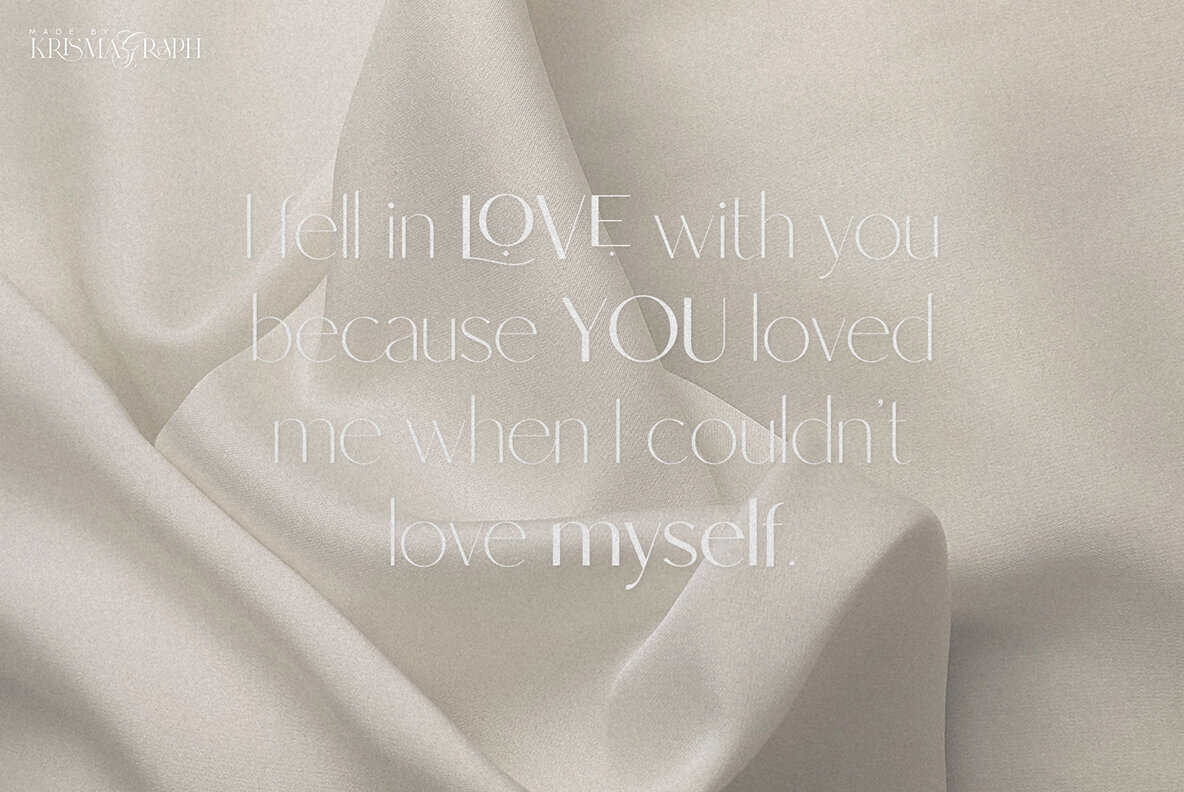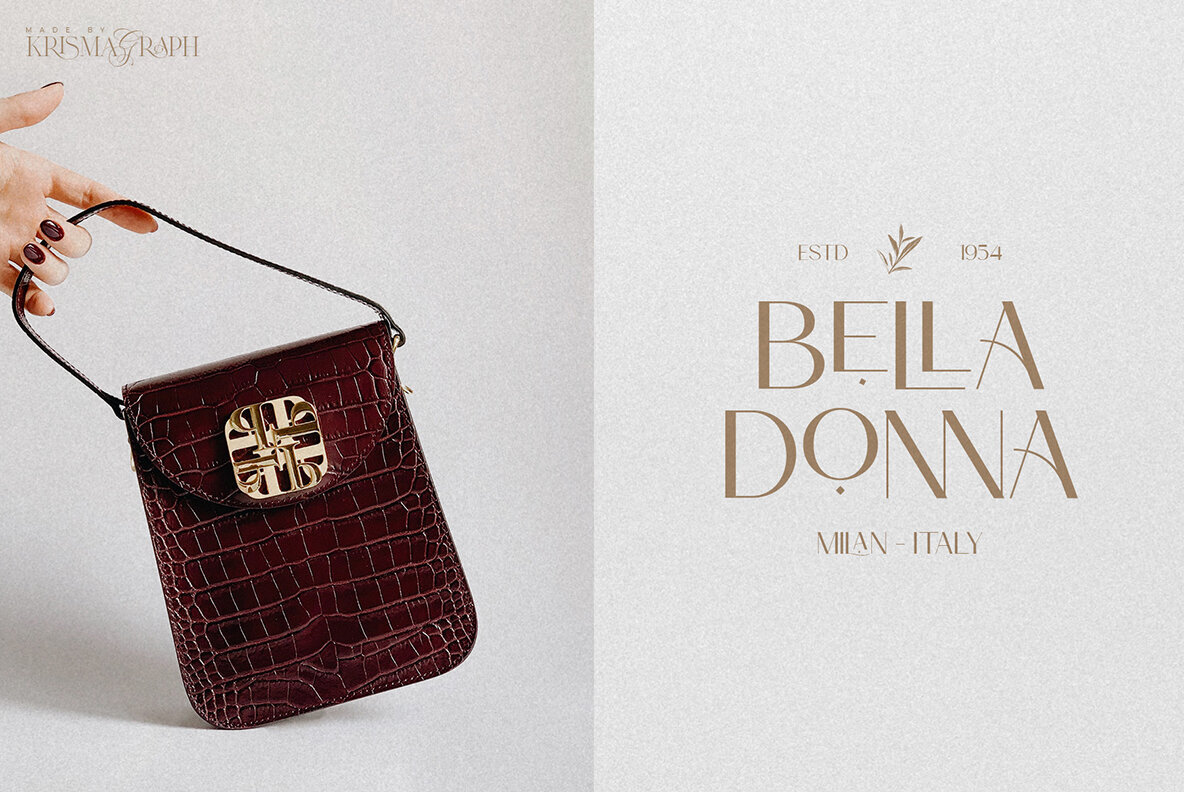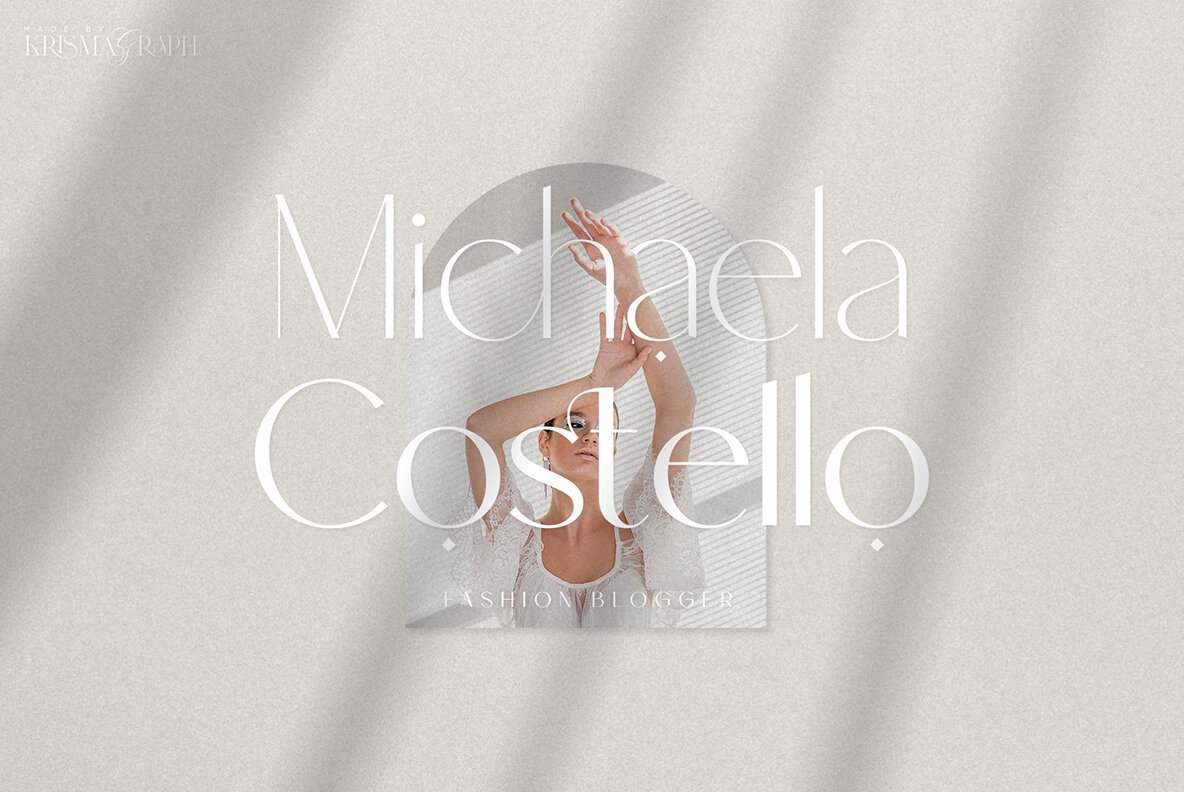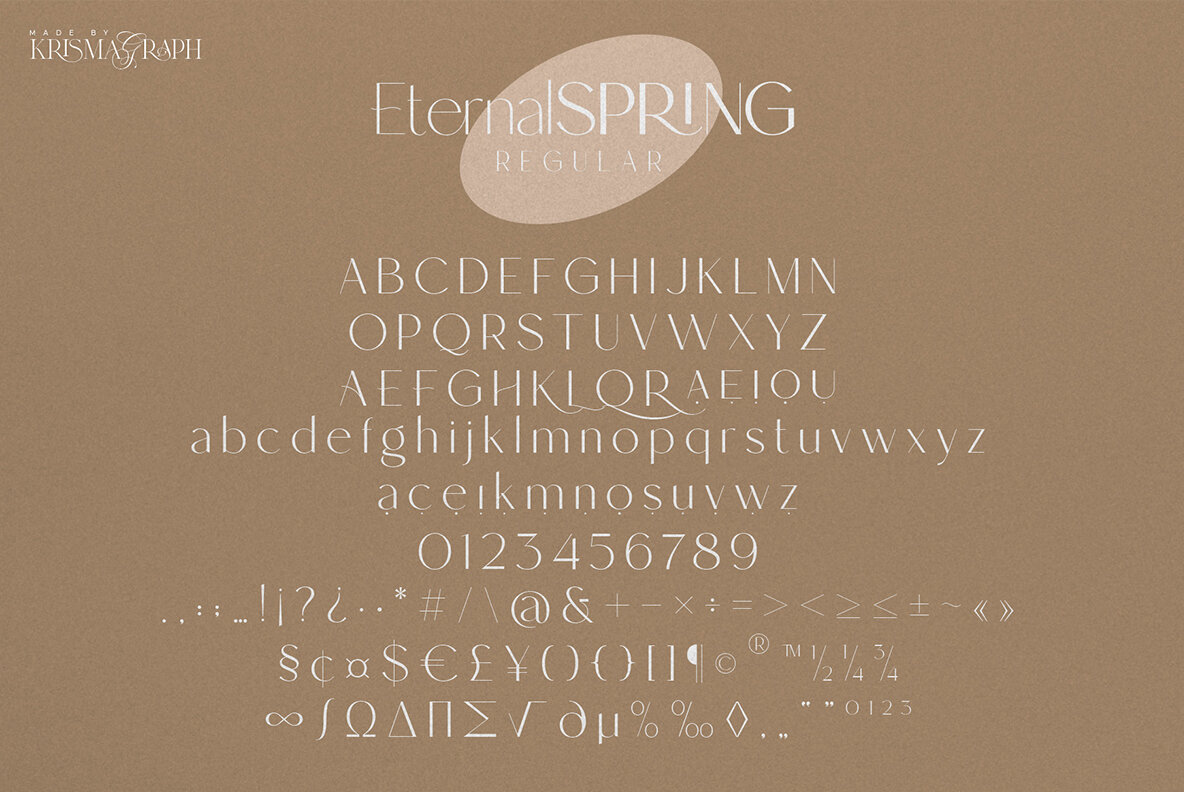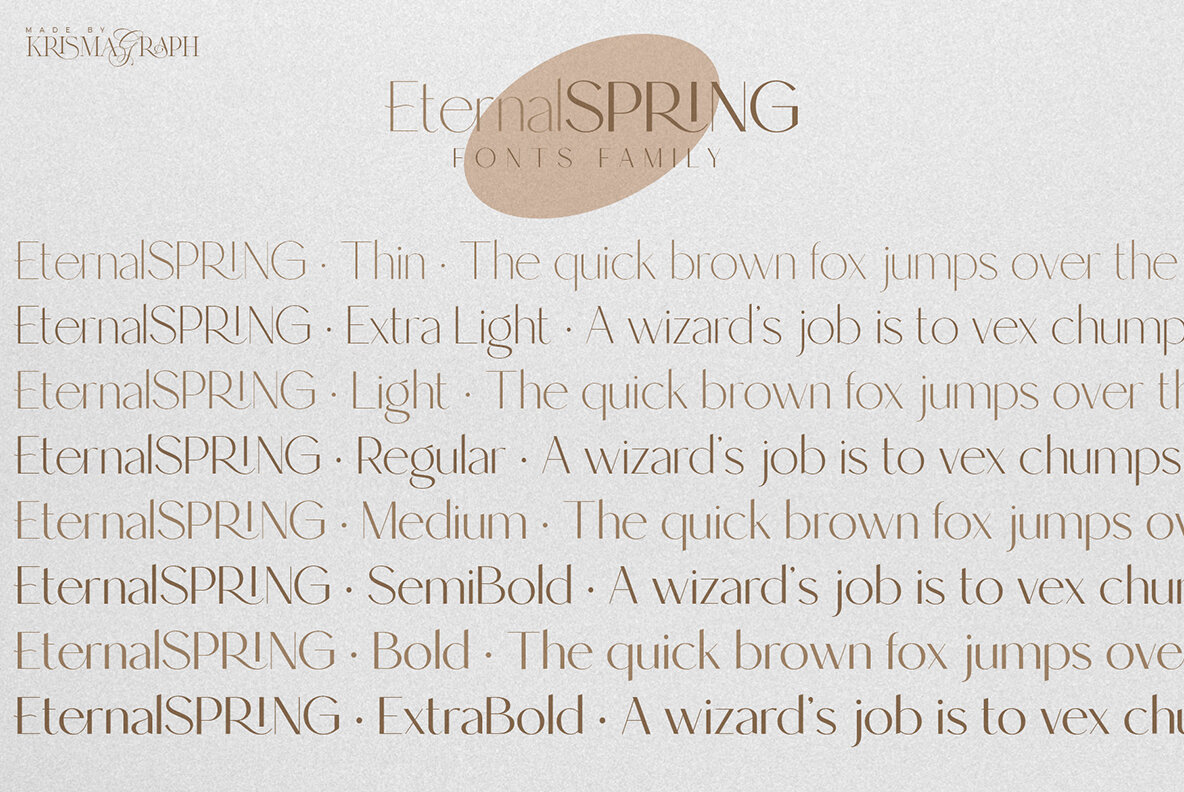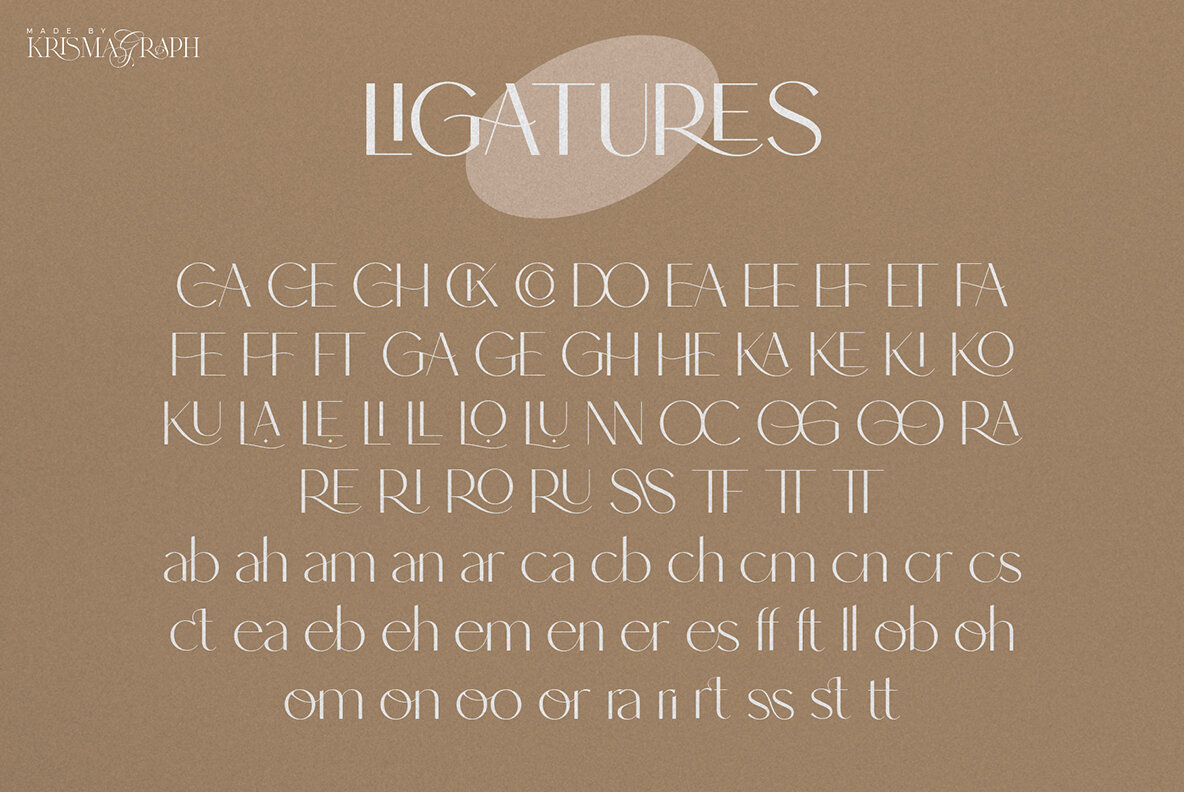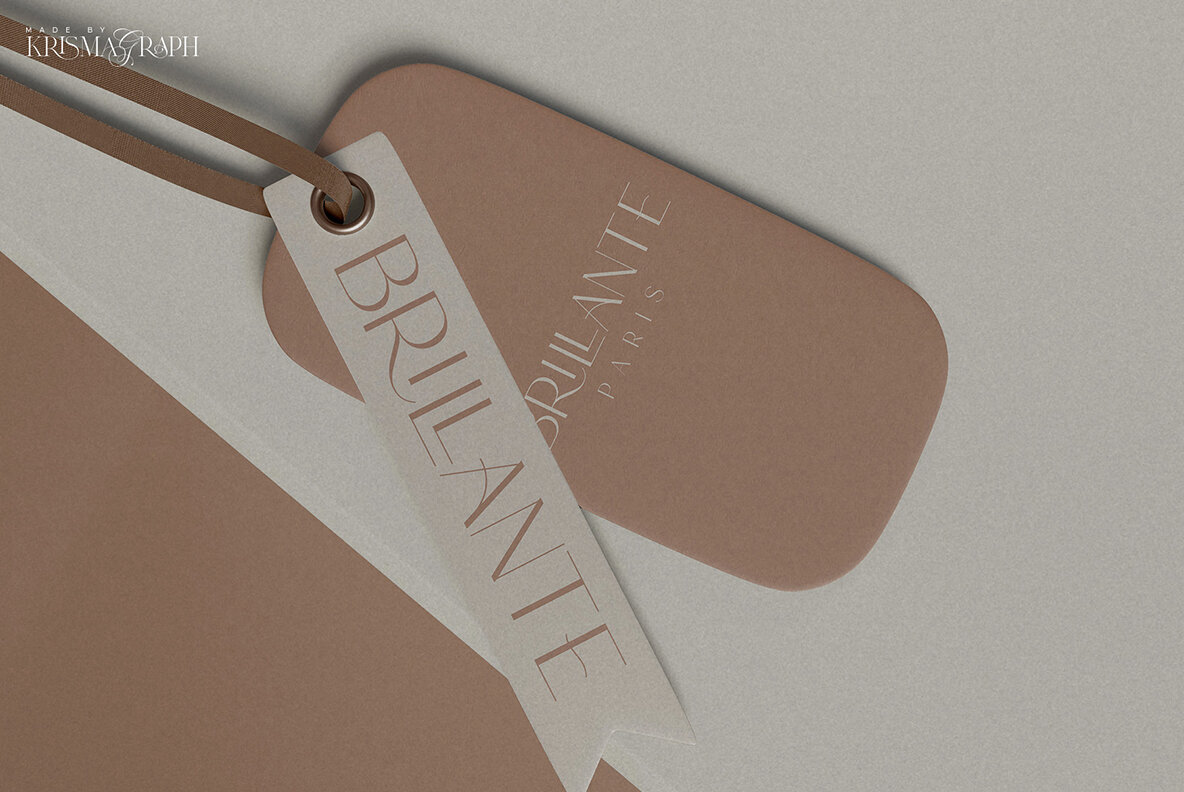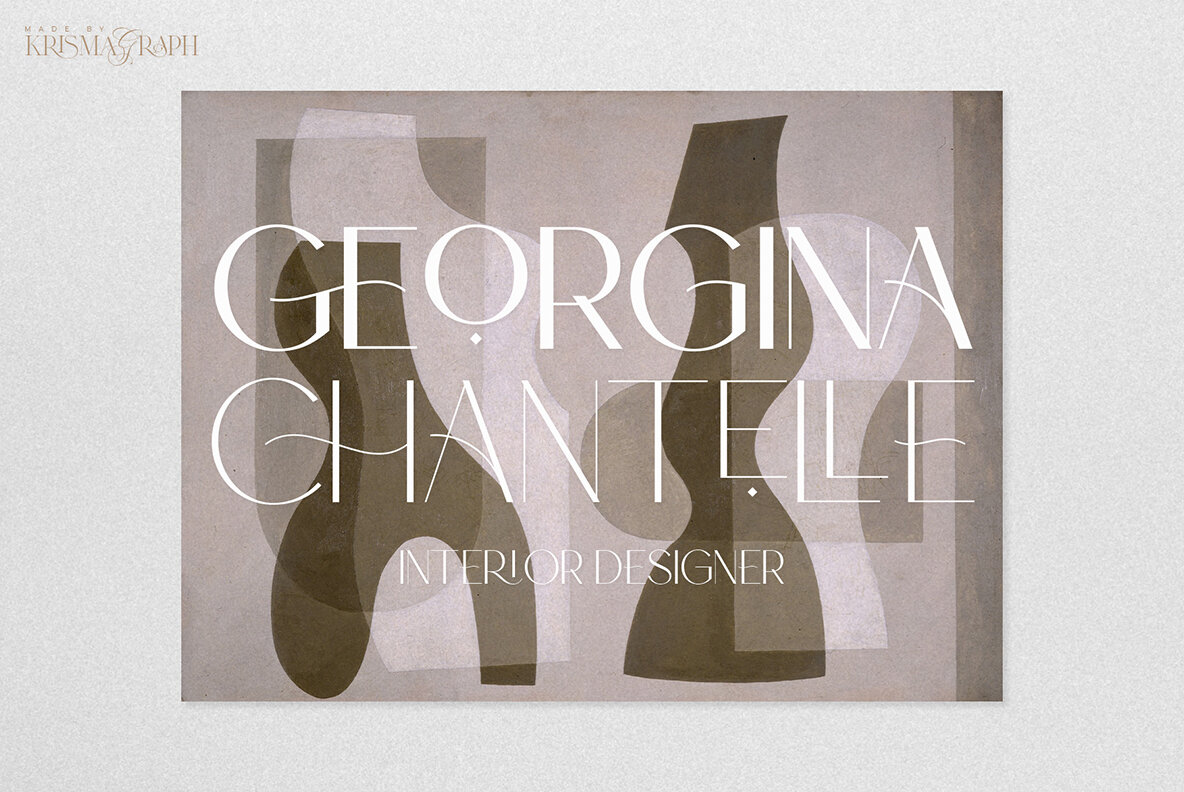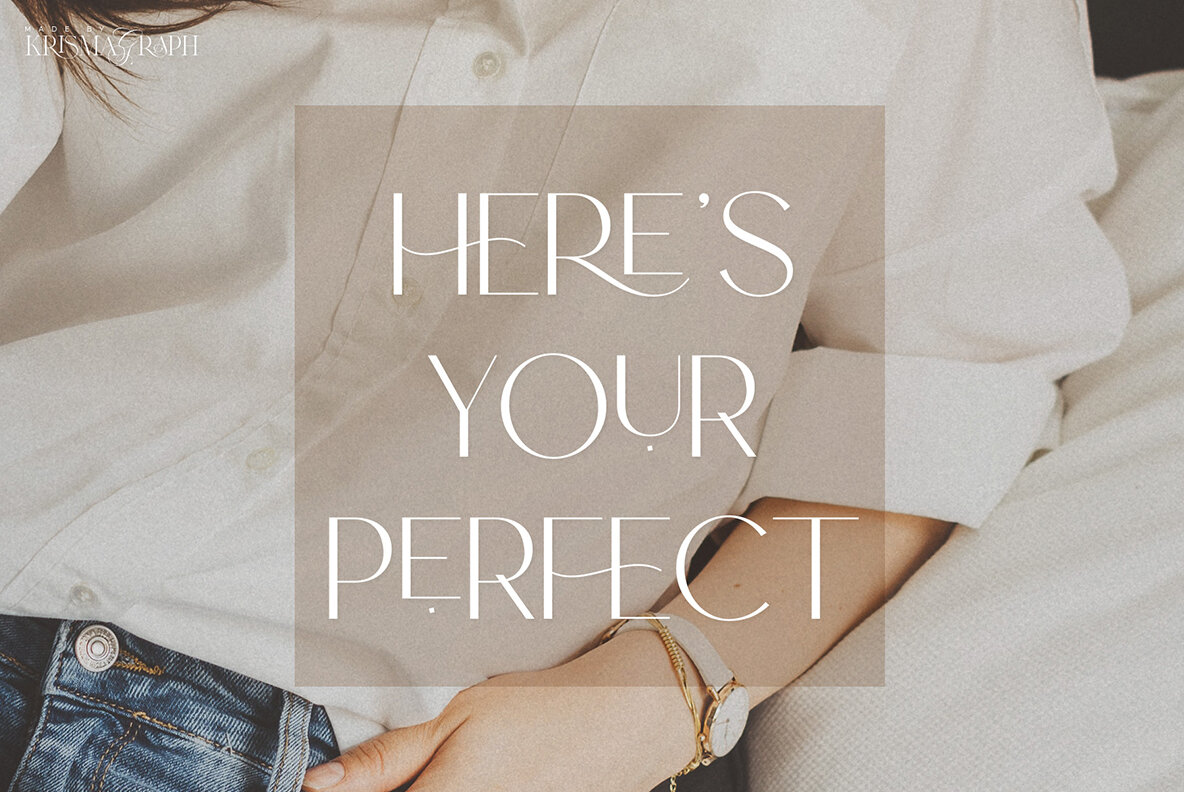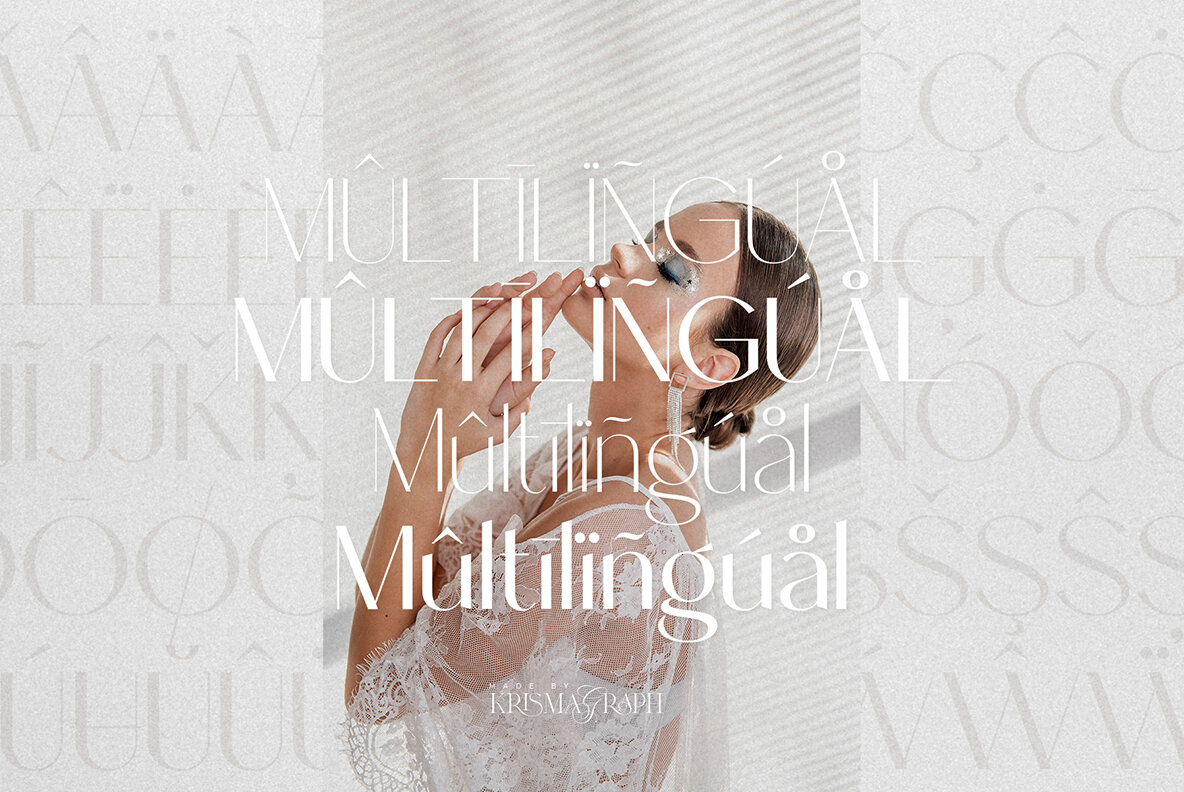
Eternal Spring Font
With its elegant and modern design, this sans serif font is perfect for any project. It comes with 76 unique ligatures as well 27 alternate letters that will help you create an incredible piece of work in no time at all! This versatile typeface works best when used on headings/logos; it has OpenType features so users can customize their experience however they want by switching out certain glyphs depending upon what kind impression someone wants to make What you get: - Eternal Spring Font Family & Variable Font File - 8 weights sans serif - Full alphabet with Uppercase and Lowercase - Numbers, fractions - Punctuation and symbols - Alternates - Ligatures - Multilingual support